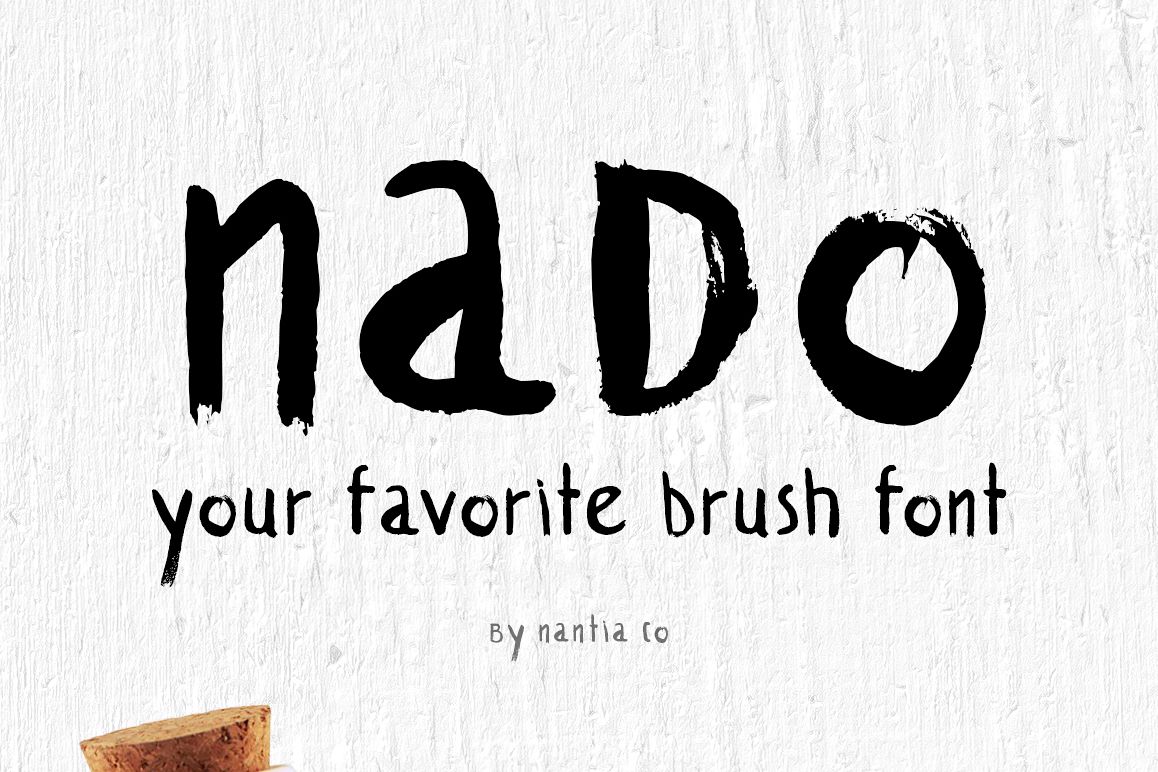
naDo Font | The Brush Font
naDo Brush Font | your favorite brush font
The naDo Brush Font will be definitely your favorite brush font. It is a 100% hand drawn decorative font with which you can achieve a handwritten-type lettering feeling. Also, this typeface has a really nice flow so you use it in large text if you want to give them a touch of personality. In fact, this multilingual font includes diacritics for a wide range of language support.
The shabby-chic style of this dry brush font, is perfect for your graphic design needs like social media quotes, blog headers, posters, art projects and why not branding, packaging, and logotypes. In conclusion, naDo Brush Font is a dry brush typeface with:
• Basic Latin character set
• Greek character set
• diacritics for multilingual support
• punctuation marks and
• numbers